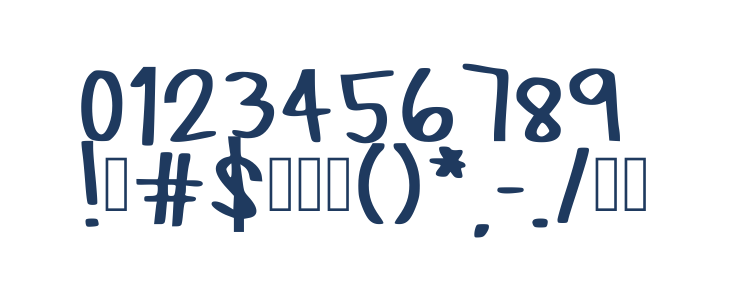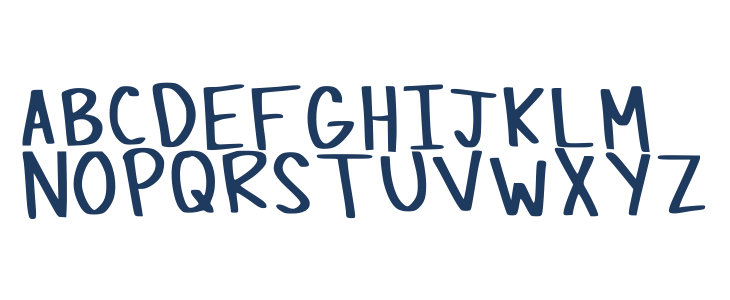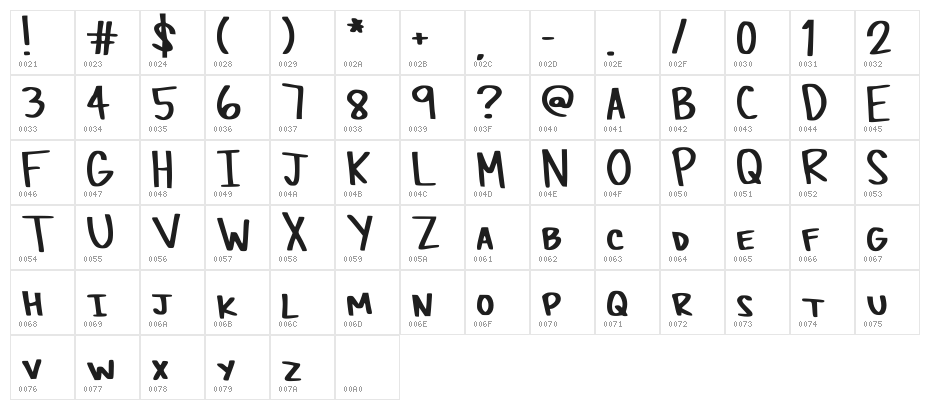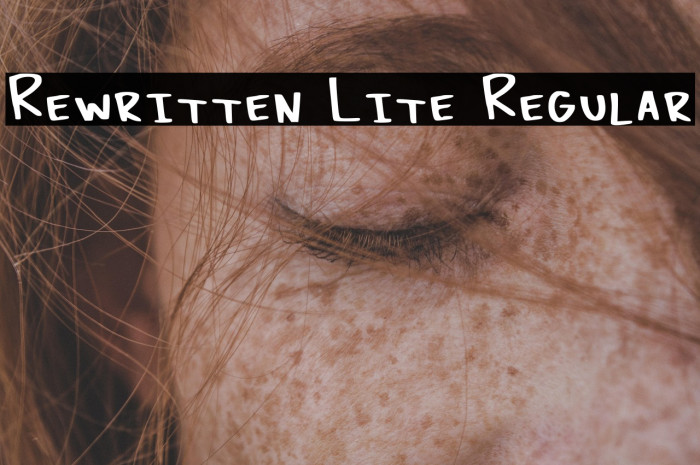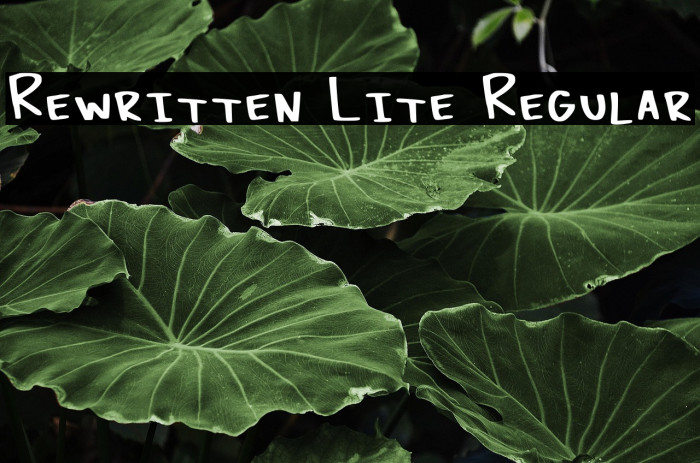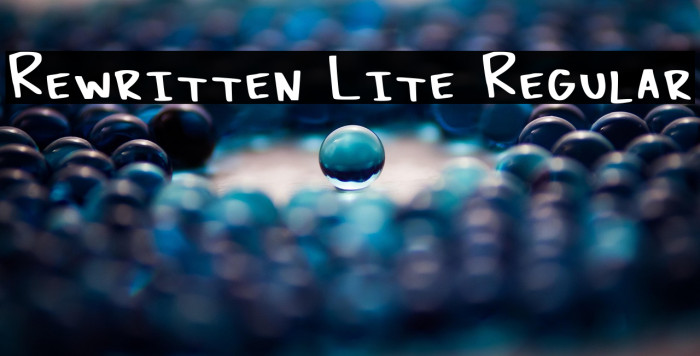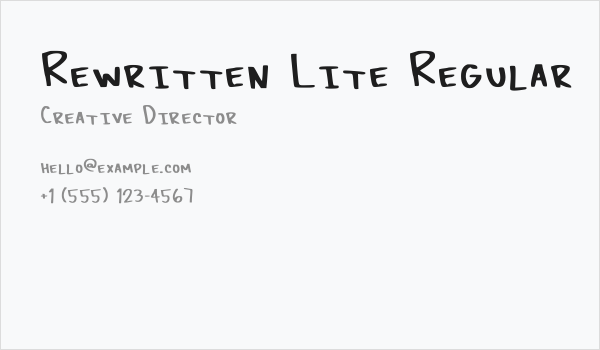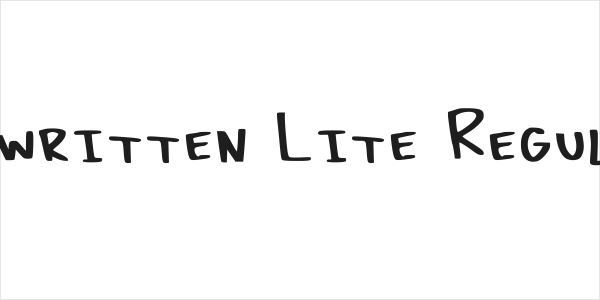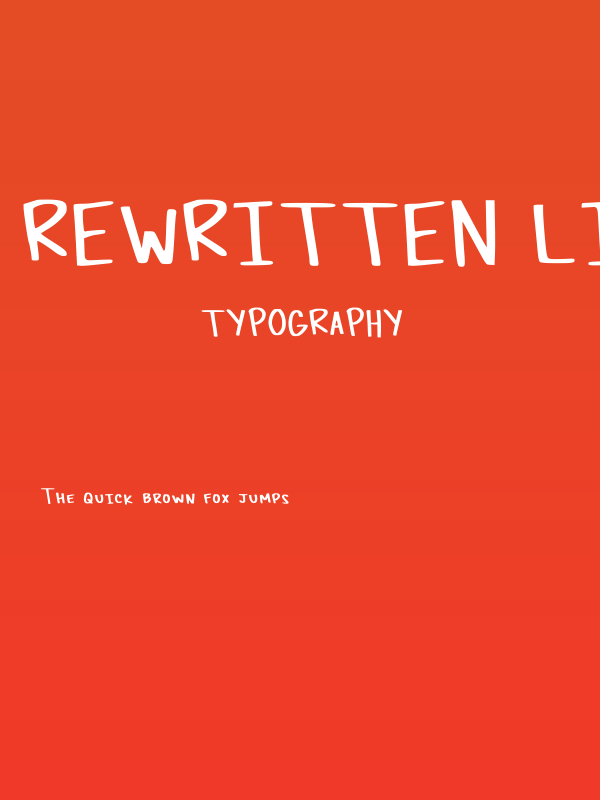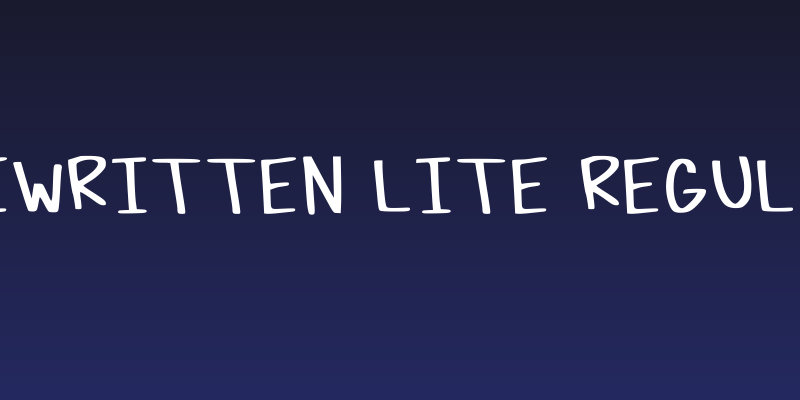
Rewritten Lite Regular Font
| Stile generale | Playful, Informal, Handwritten |
| Caso d'uso | Headlines, Posters, Informal notes, Children’s content |
| Progetti proposti | Children’s books, greeting cards, posters, informal branding, educational materials. |